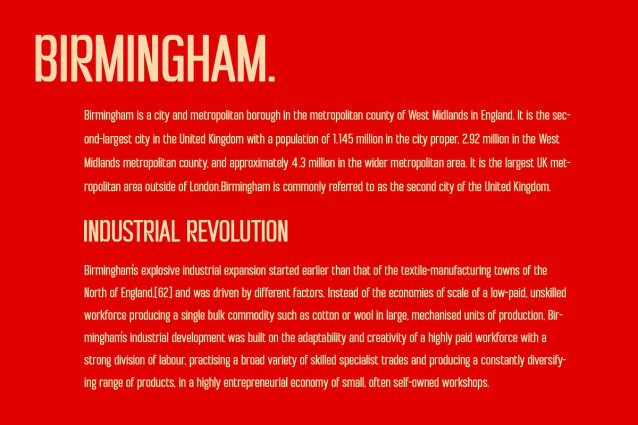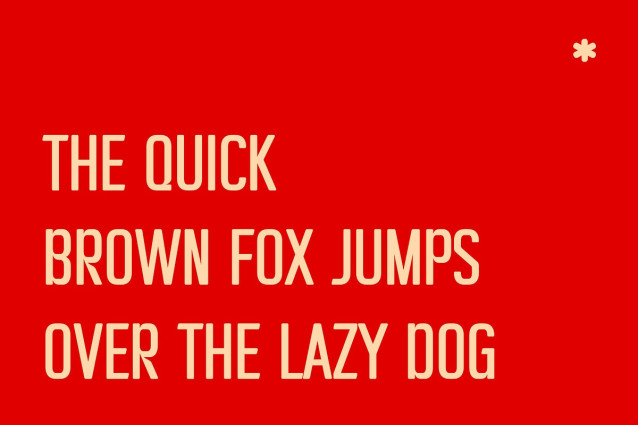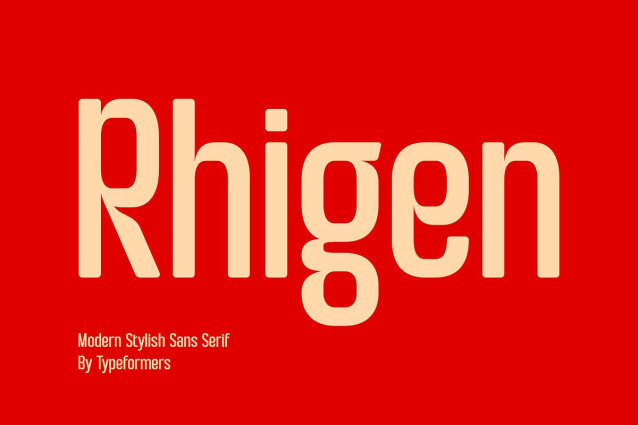
Rhigen Font
Rhigen Font – Modern Stylish Sans Serif, is a modern and simple font, best used as a display for headings, logos, branding, magazines, product packaging and invitations.